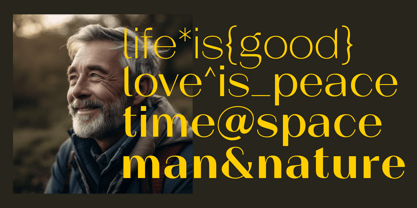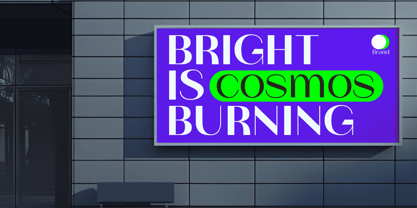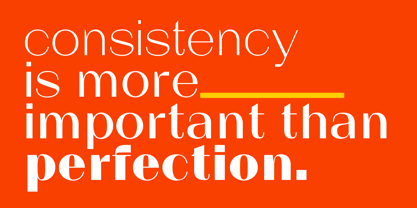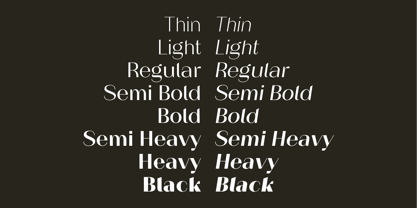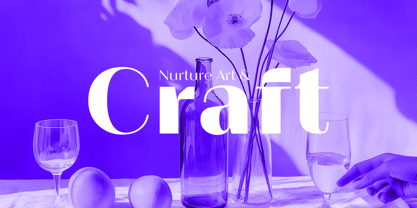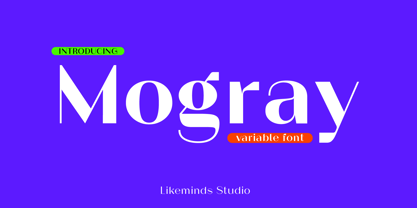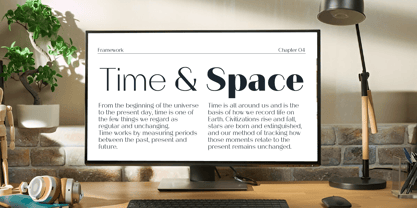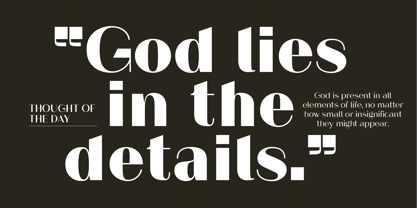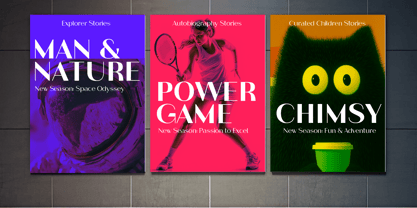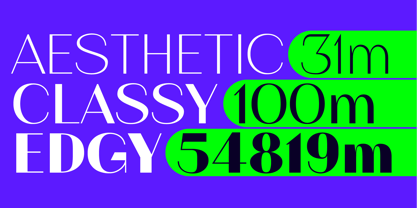
Mogray Variable
by Likeminds Studio
The Mogray Variable Font Family was designed by Abhya Chawla and published by Likeminds Studio. Mogray Variable contains 1 styles. More about this family
Mogray draws inspiration from the purity of Mogra(Jasmine) flower. This san serif variable font is clean and minimalistic in its design approach. Its elegance and freshness help transcend into an approachable and blissful experience. The stylised sharp and rounded contours make it contemporary, edgy and an aesthetically premium. It’s ideal for the logo trademarks, brand identity, user friendly display design, interface, UX, UI and advertising purpose.
It serves bold impact as headline and sharp legibility in small copy at the same time. Also comes sepeartely in 18 styles including Italics. Made with love. Spread the happiness.
Designers: Abhya Chawla
Foundry: Likeminds Studio